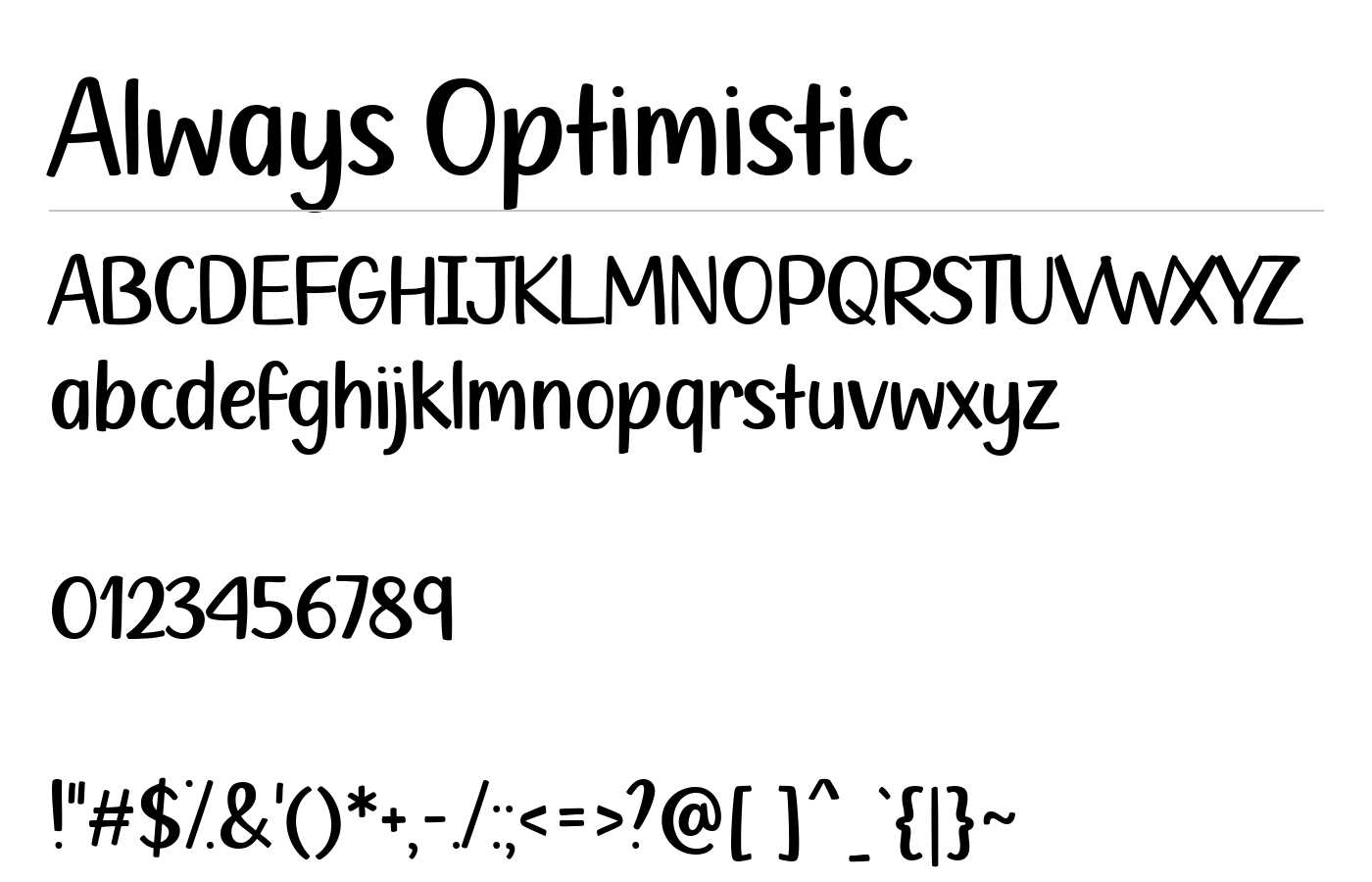
Always Optimistic is a playful and casual sans serif font with a handwritten feel, featuring tall, slightly condensed letterforms and smooth, rounded strokes that give it an approachable and friendly personality. Its clean lines and moderate contrast make it ideal for creative and informal uses, such as children’s books, fun branding, or lighthearted headlines, where a warm and optimistic tone is desired. This font works best in contexts that benefit from a personal, cheerful touch without sacrificing readability.
Always Optimistic Font
About Always Optimistic Font